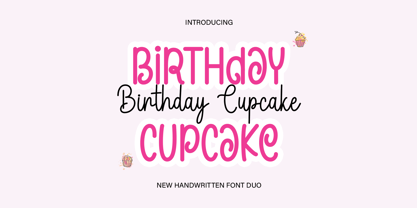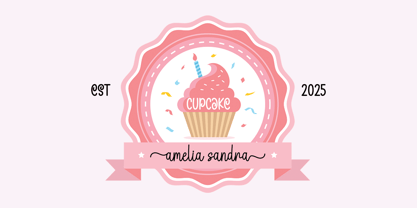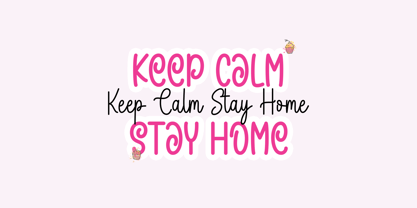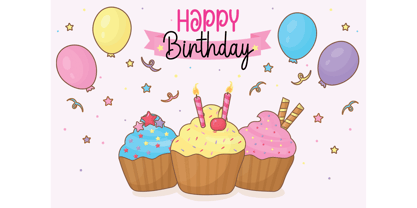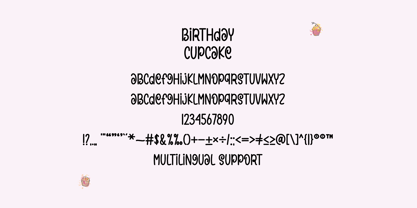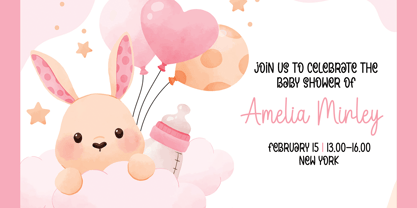
Birthday Cupcake
by Dania Graphix Studio
The Birthday Cupcake Font Family was designed by and published by Dania Graphix Studio. Birthday Cupcake contains 2 styles and family package options. More about this family
Birthday Cupcake Duo a stylish and delicate duo font (sans serif and script) suitable for a wide spectrum of applications. From greeting cards to headlines, this font will guarantee a romantic touch to each of your creations! Birthday Cupcake Duo is PUA encoded which means you can access all of the glyphs and ligatures with ease.
Birthday Cupcake